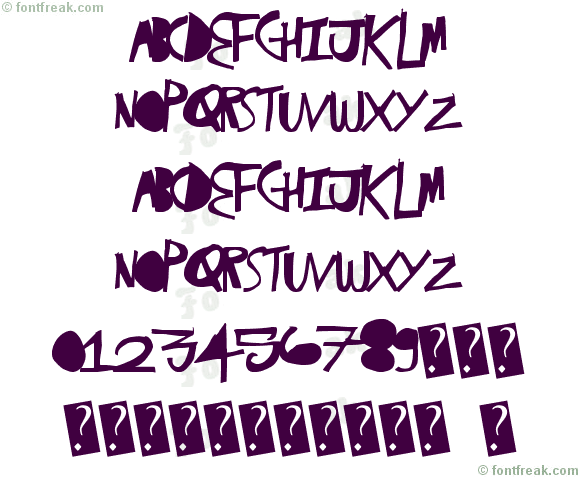
VictoryCut
About VictoryCut
VictoryCut by XEROGRAPHER FONTS is a striking display typeface that combines bold, angular forms with a dynamic sense of movement. As a decorative font, it features sharp edges and a unique cutout style that gives it an eye-catching presence. The stroke weight is consistent, which allows the font to maintain clarity even at larger sizes, while the spacing is optimized to enhance readability. The overall aesthetic is modern yet playful, making it suitable for a variety of creative projects.
The VictoryCut font is perfect for use cases such as event posters, where its dramatic flair can draw attention and convey excitement. It also works wonderfully for branding elements, particularly for businesses looking to establish a bold visual identity. Other ideal applications include vibrant restaurant menus that reflect a lively atmosphere and eye-catching social media graphics designed to stand out in crowded feeds. This versatility makes VictoryCut an excellent choice for graphic designers, small business owners, and content creators alike.
The target audience for this font consists of individuals and organizations looking to make a statement with their visual communications. Its unique characteristics appeal to those who appreciate creativity and innovation in design, enabling them to convey their messages with impact.
What sets VictoryCut apart is its ability to blend artistic expression with practical usability. The distinctive cutout design not only grabs attention but also communicates a modern sensibility that resonates with contemporary audiences. For those seeking to elevate their projects with a font that combines style and functionality, the VictoryCut font free download offers an accessible solution that can enhance a wide range of creative endeavors.